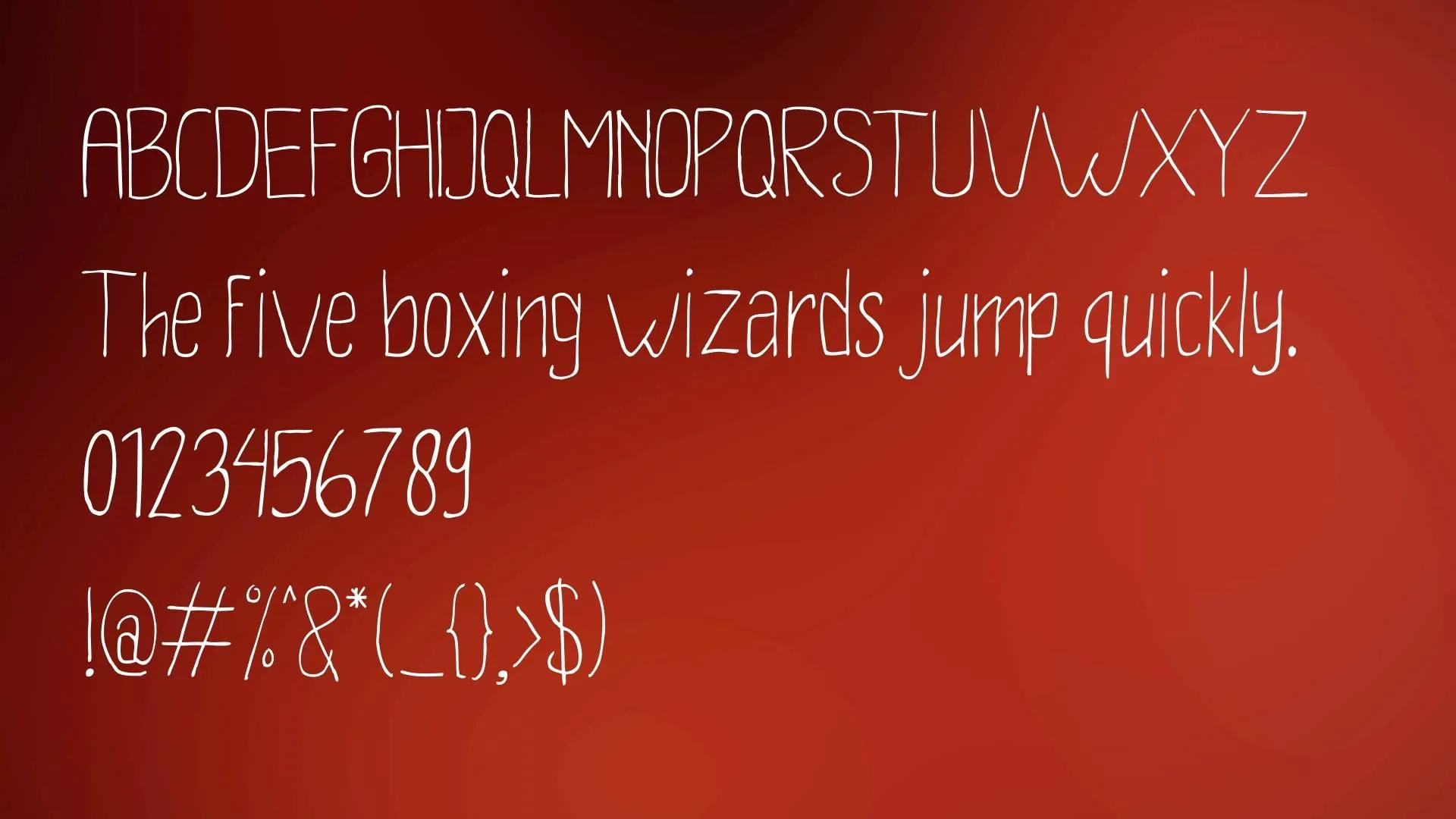
Lonssa Condensed Font is designed by a foundry named jiw studio. This is an elegant and new typeface font that is new in the font market. This is a sweet handwritten font that gives you a very humanist feel.
This typeface is a bold and long letter font that can be very useful in logo design. If you are looking for a font that is always suitable for your design, so this font is actually for you.